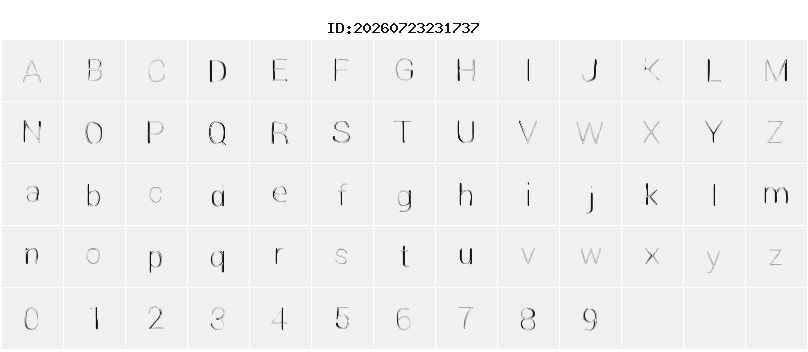
• Font Name: Extreme Simple
• Full Font Name: Extreme Simple
• Designer: Woodcutter Manero
About Extreme Simple.ttf
Extreme Simple.ttf is a modern, elegant sans-serif font designed for ultimate readability and visual harmony. Perfect for branding, headlines, web design, and print materials.